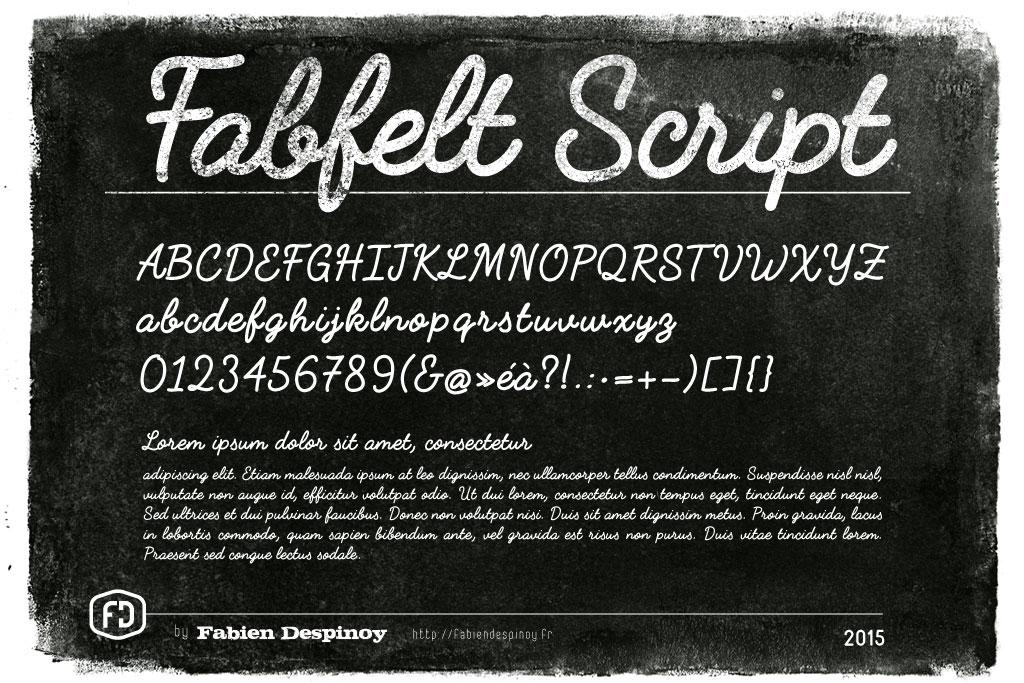
Fabfelt Script: Free Handwritten Font
Hi Friends, here's one beautiful hand-written free font that you'll love to download and use it in your typographic design works. The name of the font is Fabfelt script created by Fabien Despinoy.
It's so nice and natural with a little retro touch that I fell in love with it instantly.  So why don't you go ahead and download it and try it for yourself? Let me know what you think of this script font.